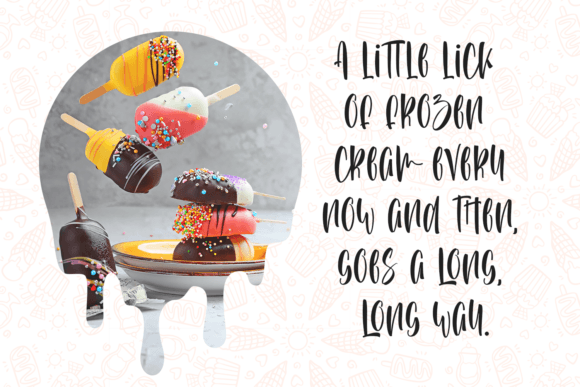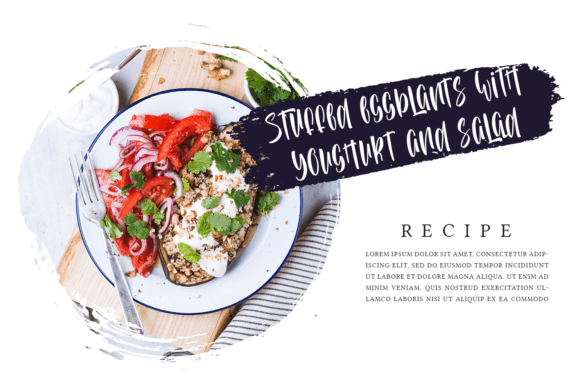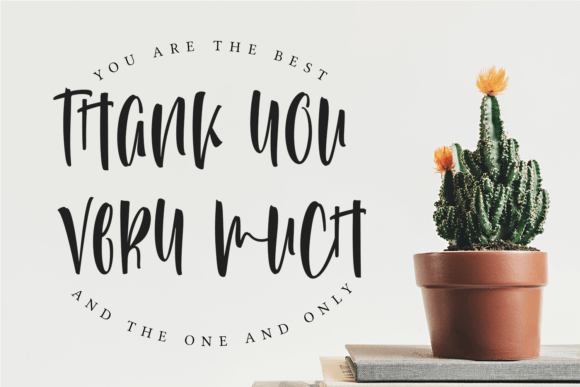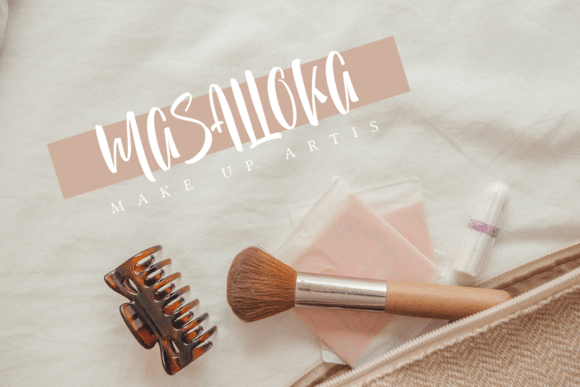
What Makes Billagoos Special?
Billagoos is a stunning script font designed with a very fresh shape, making it perfect for a variety of designs and craft variations. This font was particularly crafted for those who need a beautiful and refreshing look to their designs. With its PUA encoding, you can easily access all the amazing glyphs and ligatures, which is a total game-changer for designers and crafters alike!
My Honest Review of Billagoos
So, what do I love about Billagoos? Here are a few things that make it stand out:
- ✨ Beautiful, flowing script that looks amazing on paper and on screen
- ✅ PUA encoded for easy access to glyphs and ligatures
- 💫 Highly versatile and suitable for a range of design projects, from branding to invitations
- 🎉 Fresh and modern look that’s perfect for trendy designs
Of course, no font is perfect, and Billagoos has a few small quirks:
- 🤔 Some users may find the font a bit too ornate for very minimalist designs
- ⚠️ May not be the best choice for very long blocks of text, as it can be a bit hard to read
The Story Behind Billagoos
While the true story behind Billagoos remains a mystery, it’s clear that the designer was inspired by the beauty of handwritten script. With its flowing lines and fresh shape, Billagoos is the perfect font for designers and crafters who want to add a touch of elegance and sophistication to their work.
| What is PUA encoding, and why is it important? | PUA (Private Use Area) encoding allows designers to access a range of glyphs and ligatures that are not available in standard fonts. This means you can create unique and customized designs with ease! |
| Is Billagoos suitable for body text? | While Billagoos is a beautiful font, it’s not ideal for long blocks of body text. It’s best used for headlines, titles, and short paragraphs. |